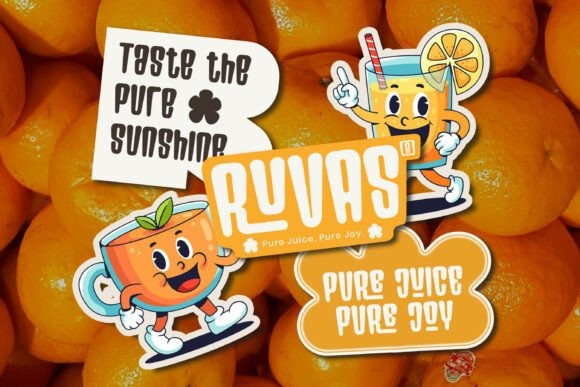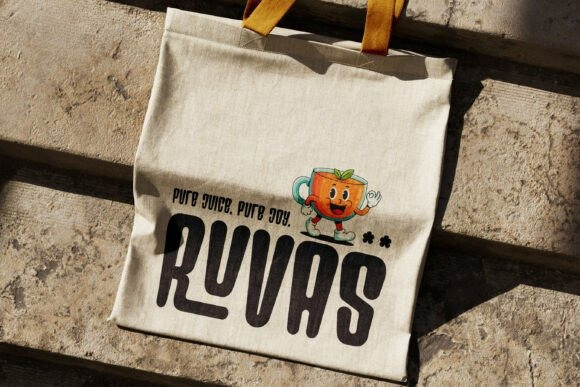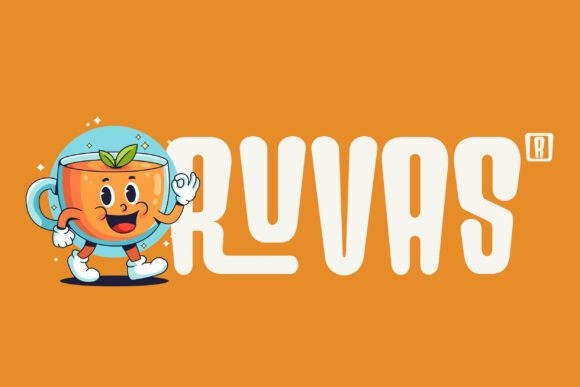
Ruvas Font
Ruvas Font is a cheerful and energetic playful display font designed to bring a burst of personality to your creative projects.With its bold shapes, bouncy curves, and quirky character details, Ruvas delivers a fun and joyful look that instantly captures attention.
Perfect for children’s products, cartoon titles, food & beverage branding, mascot designs, logos, packaging, social media posts, and any project that needs a lively, vibrant touch.